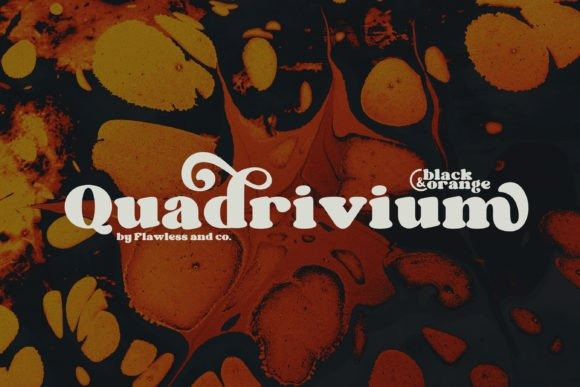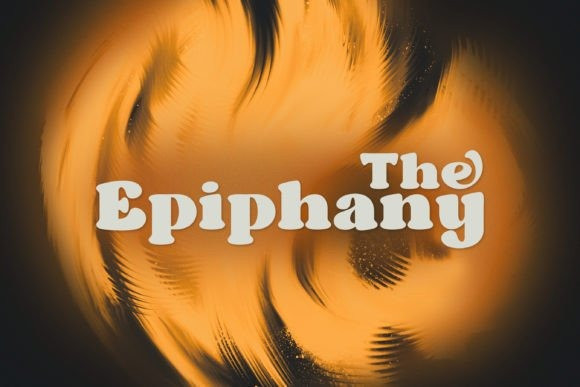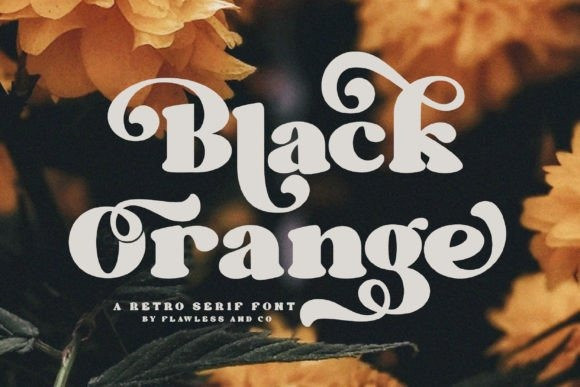
Black Orange Font
Black Orange Font  – A Retro Serif Font. Journey back in time to the classic and timeless era of design with “BlackOrange,” a captivating retro serif font that exudes the essence of vintage charm. With its elegant serifs and distinctive character, “Black Orange” brings a touch of nostalgia and sophistication to your creative projects.